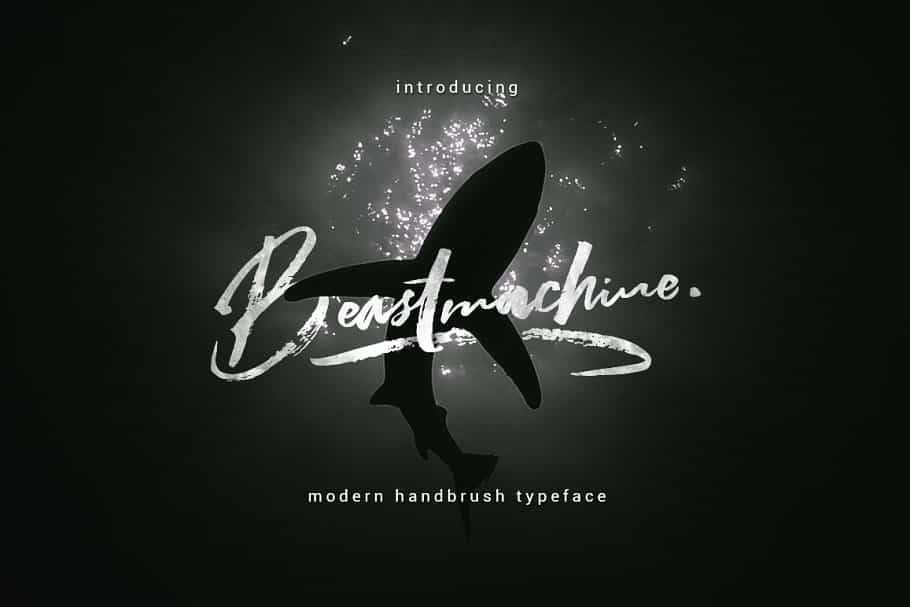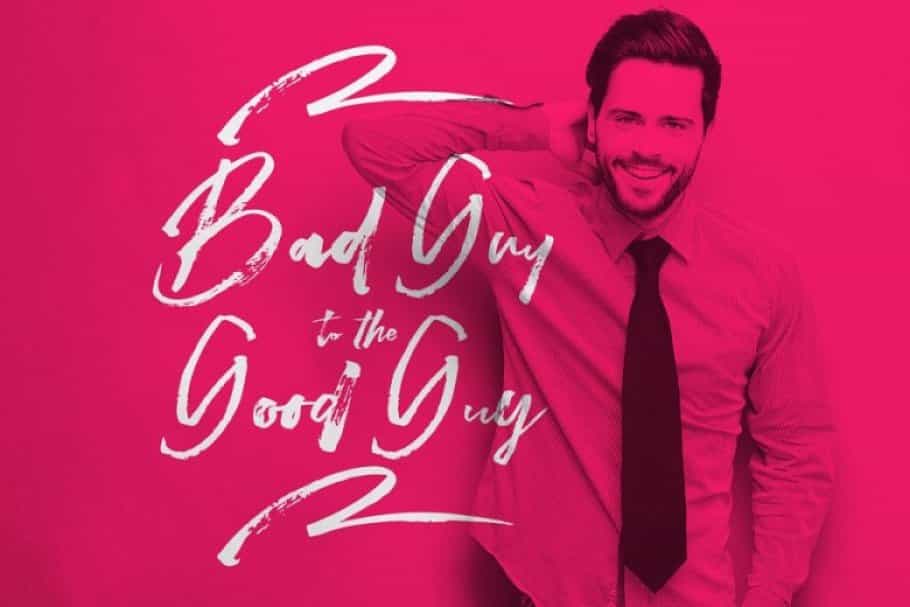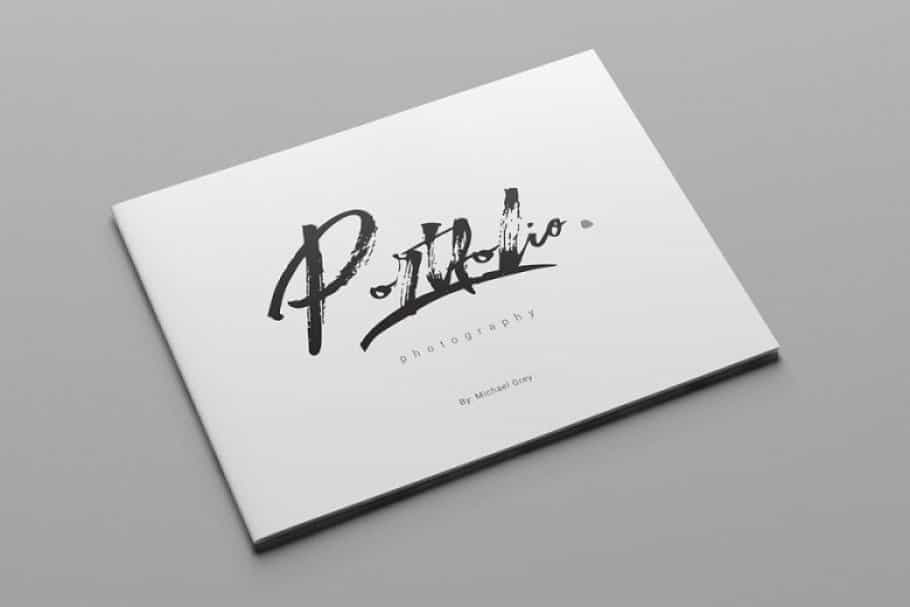
Introducing Beastmachine Font. Beastmachine has standard ligatures included – to make the font look more natural, handwritten when you have any double letters in your design. Besides, it is also multilingual having accented characters for international users. Beastmachine is the most appropriate font for stationery, logos, t-shirt, paper design print set against website header scheme. It also fits great in photo frame image slider flyer music cover poster and much more.